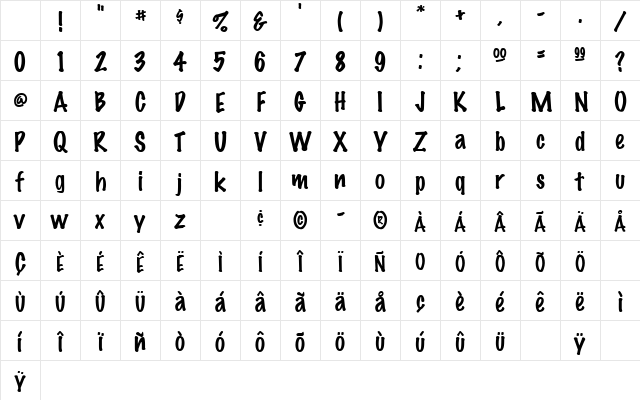
MarkerFeltThin-Plain Regular Free Font
MarkerFeltThin-Plain Regular
Design Context for MarkerFeltThin-Plain
MarkerFeltThin-Plain is a composed and adaptable typeface that performs quietly and consistently across a wide range of design contexts. Its slender proportions lend an understated elegance to any composition.